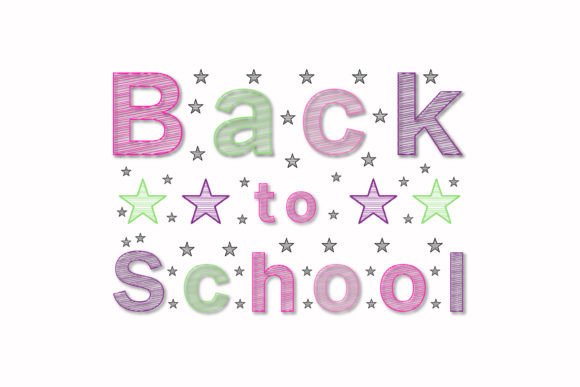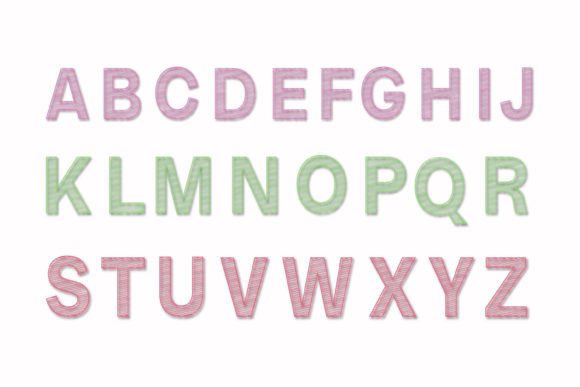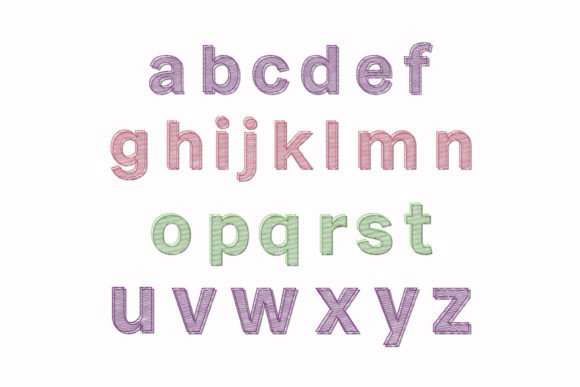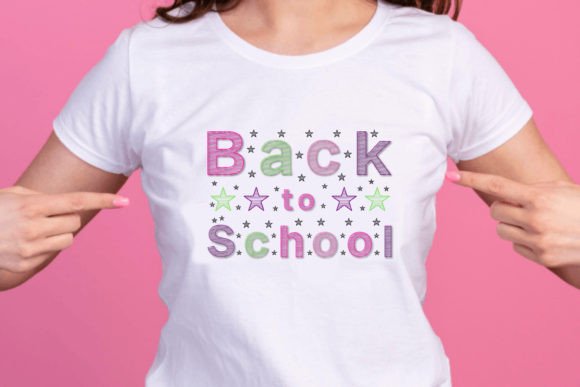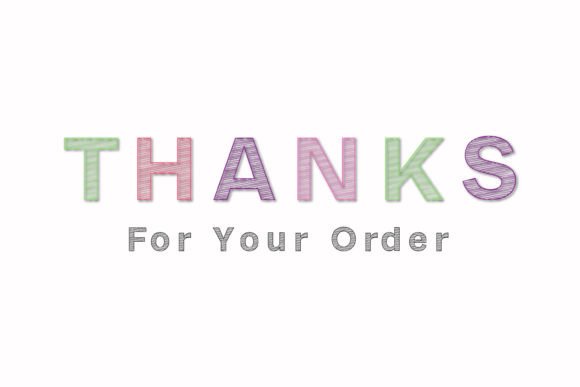
Introduction to Simple Stroke Font
Introducing a vibrant splash to your creative projects, our color font embodies joy and whimsy that is bound to elevate your design endeavors.
An absolute fit for branding initiatives, packaging designs, riveting logotypes, and gripping headlines, it also adds a sprinkle of charm to wedding invitations and similar creatives Embrace and experience the transformative power of this uplifting font in your designs.
Key Features of Simple Stroke Font
Why Choose Simple Stroke Font?